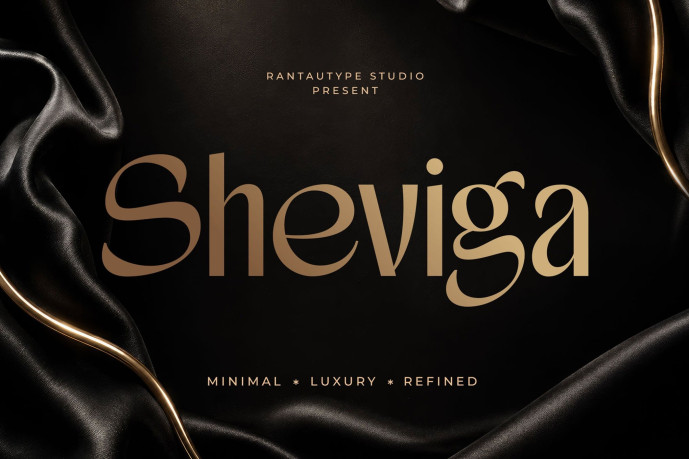
Sheviga Font is A refined luxury Sans campaign built around modern editorial minimalism sophistication. The font’s high-contrast curves and elegant terminals suggest a premium fashion house identity balancing softness with commanding presence.
Sheviga is a perfectly choice for any creative endeavor, creating, modern, lifestyle design such as logotype, title, cover, branding, invitations, wedding designs, display and magazine, social media posts, advertisements, printed quotes, product packaging, corporate brand, product designs, labels, photography, watermarks, special events and any other project with elegant touch.